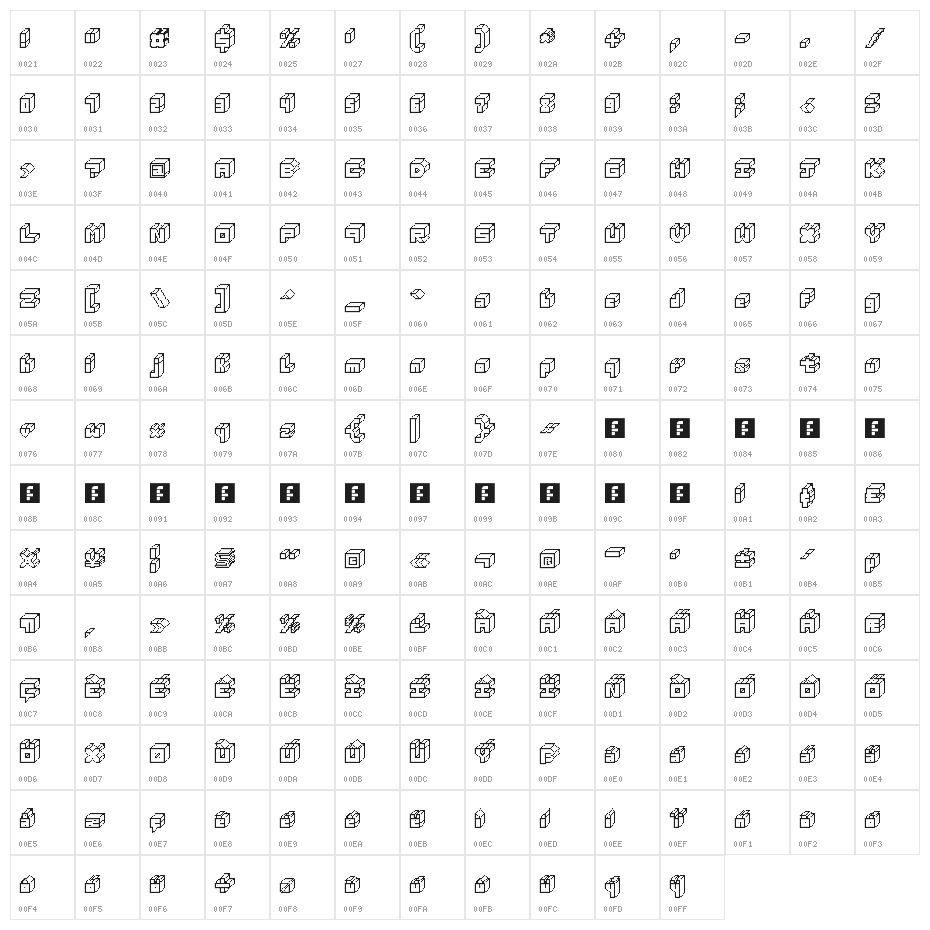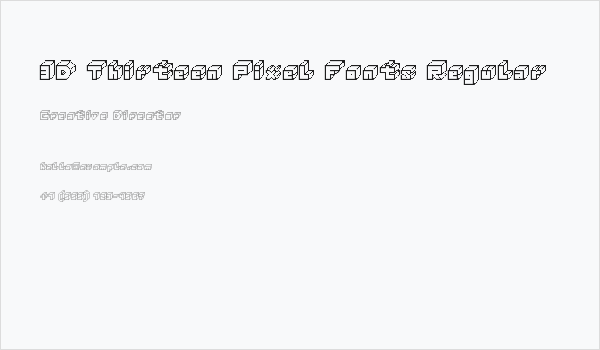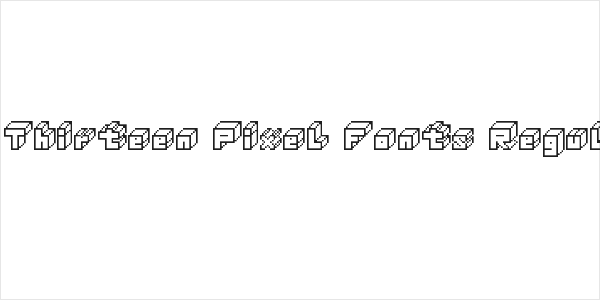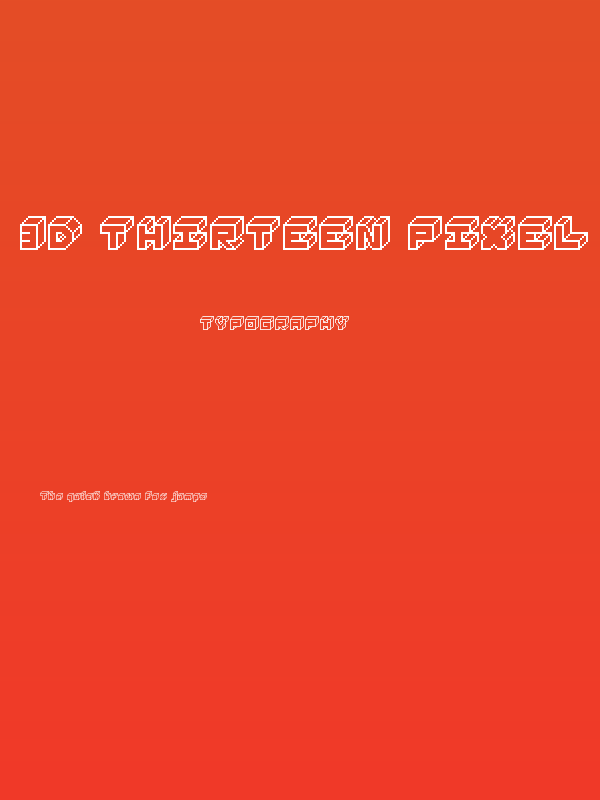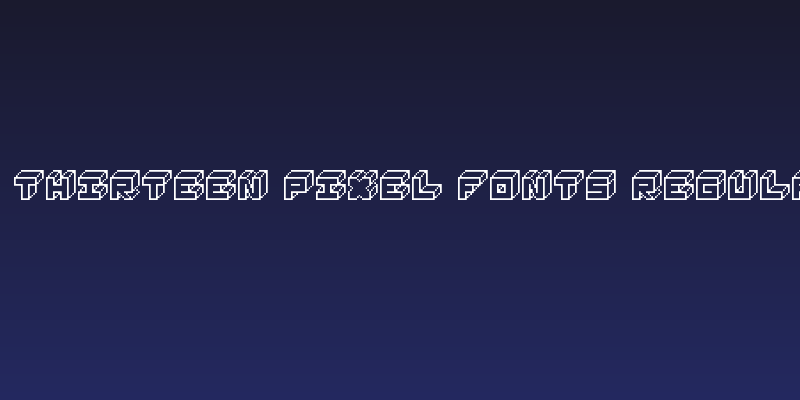
3D Thirteen Pixel Fonts Regular Font
3D Thirteen Pixel Fonts Regular Description
This font features a bold, three-dimensional pixelated design that gives each character a blocky, geometric appearance. The letters are constructed with a clear, outlined style that emphasizes their 3D form, making them stand out with a distinct shadow effect. The uppercase and lowercase letters maintain a consistent style, with the lowercase being slightly smaller in size but retaining the same blocky aesthetic. Numbers and special characters are designed to match the overall theme, ensuring a cohesive look across all glyphs. The font's playful and retro vibe makes it ideal for projects that require a nostalgic or game-like feel.
Overall StyleRetro, Playful
Proposed ProjectsIdeal for video game graphics, retro-themed posters, digital art, and creative branding projects.